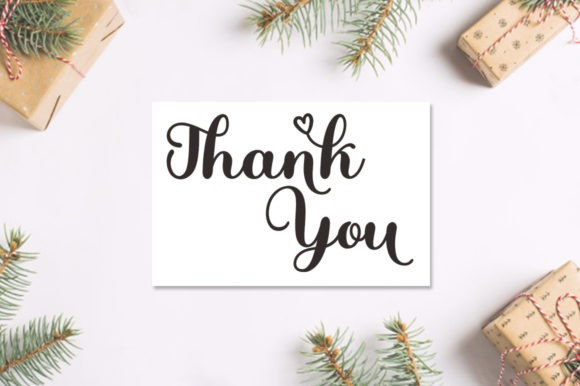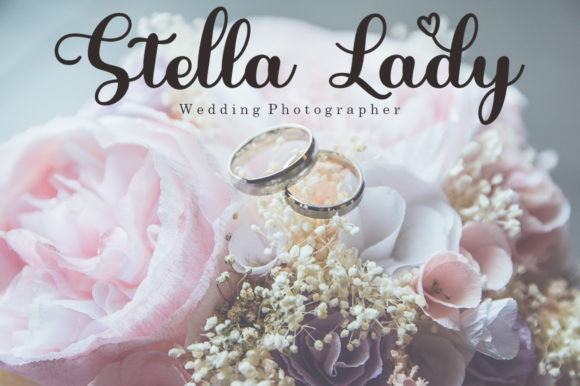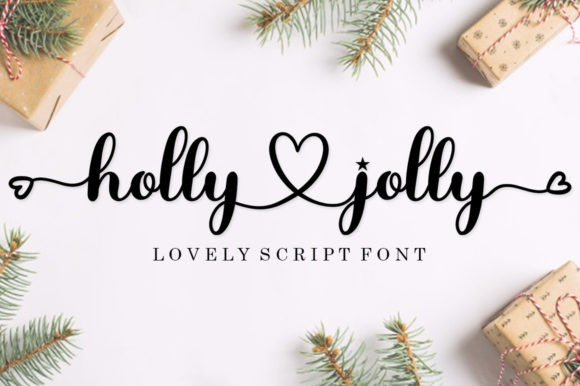
Holly Jolly Font
Holly Jolly Script Font is a romantic and sweet calligraphy typeface with characters that dance along the baseline. This font is PUA encoded which means you can access all of the amazing glyphs and ligatures with ease!